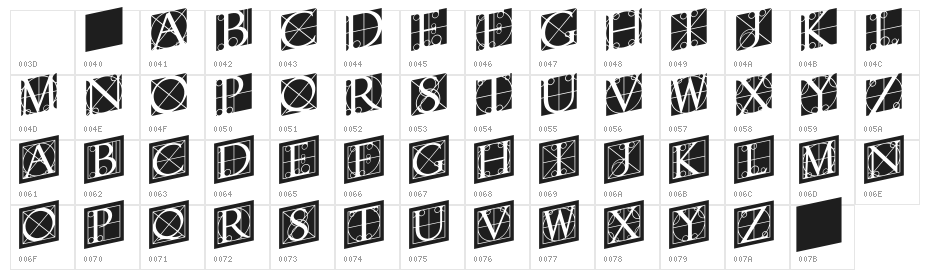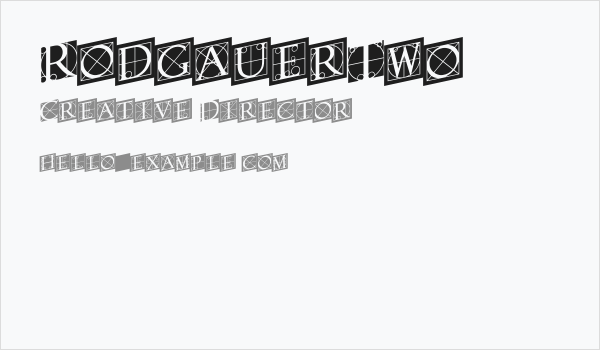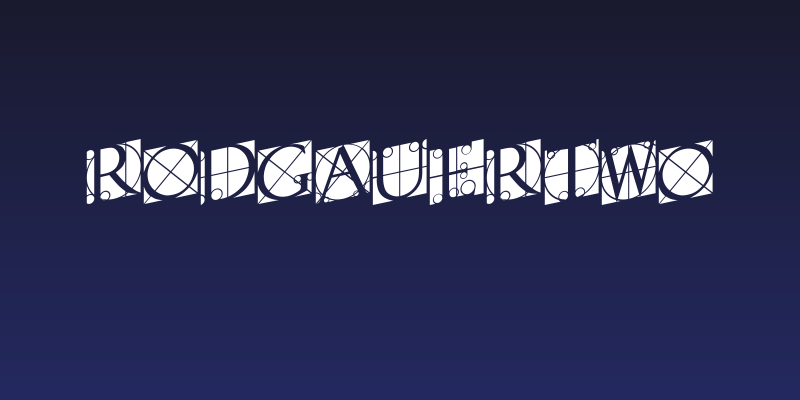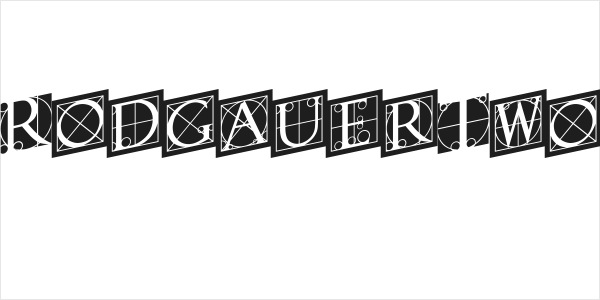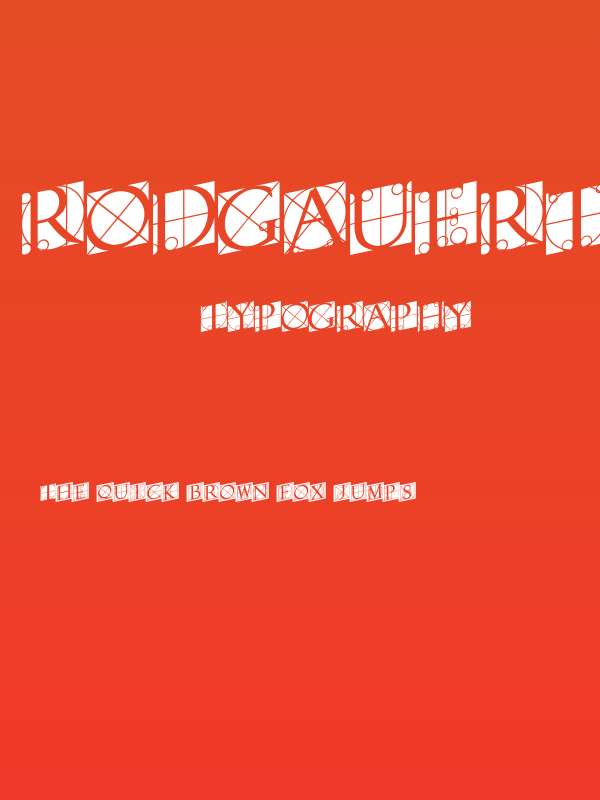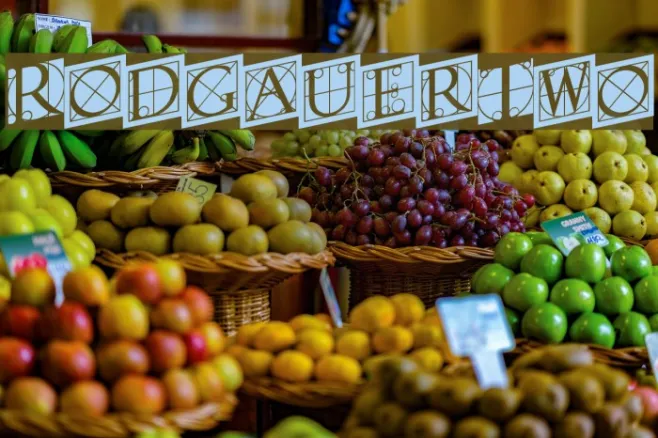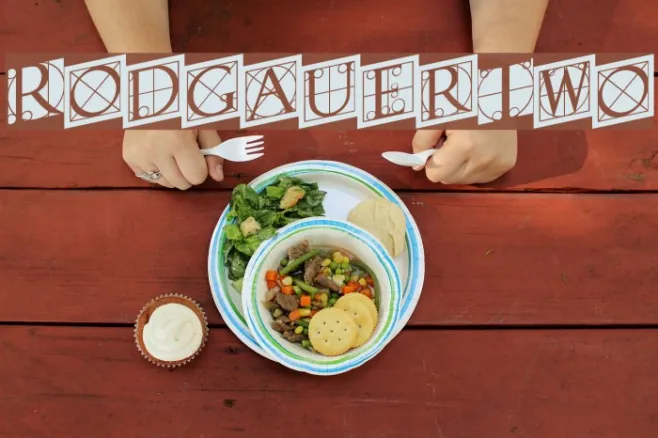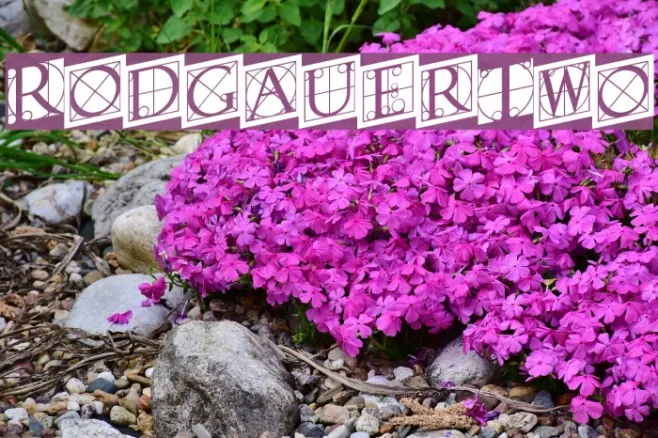
RodgauerTwo Font
This font features a highly decorative and geometric style, characterized by intricate line work and circular patterns within each letterform. The uppercase letters are enclosed within a rectangular frame, adding a bold and structured appearance. The design incorporates a mix of sharp angles and smooth curves, creating a visually striking and unique aesthetic. The use of negative space and detailed embellishments gives the font a complex and artistic look, making it ideal for creative and eye-catching designs.
| Proposed Projects | Ideal for artistic posters, album covers, branding projects, and any design requiring a bold and decorative touch. |